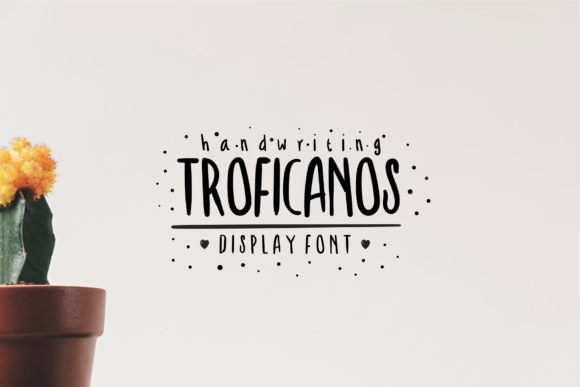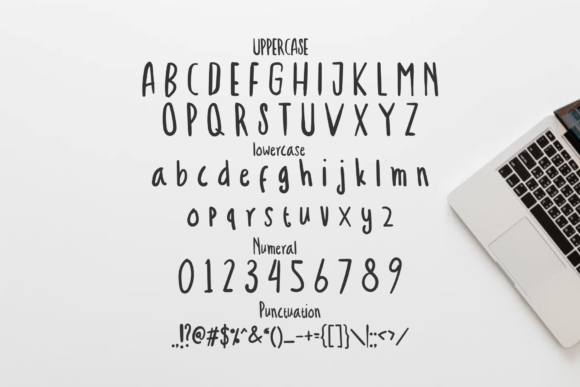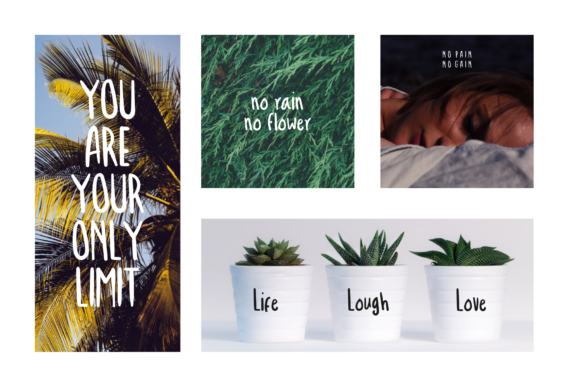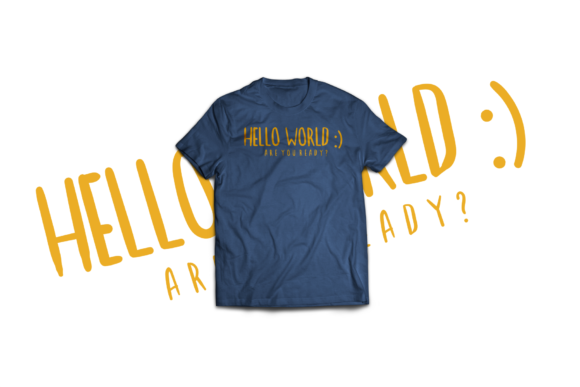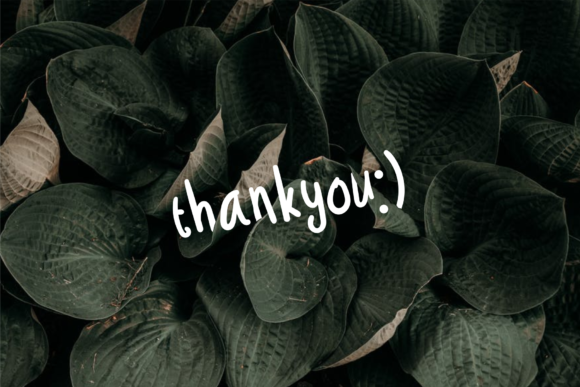
Troficanos Font
About Troficanos Font
The Troficanos is a handwritten font with beautiful characters. It has a child like, good-hearted feel which is perfect for invitations, parties, websites, and every other design that needs a soft and funny touch.